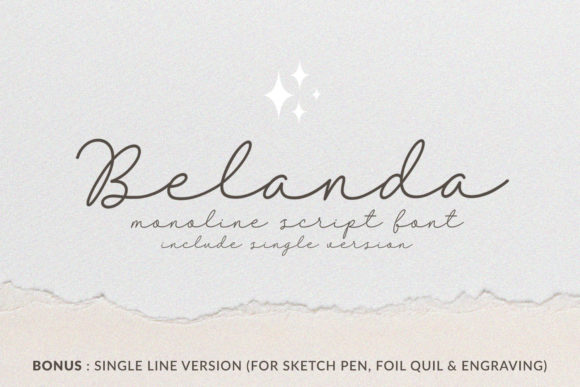
Belanda Font: A Stylish and Vintage Script Font for Your Design Projects
Are you looking for a font that can add a touch of elegance and romance to your design projects? Look no further than the Belanda font. This stylish and vintage script font is perfect for a variety of design ideas, from wedding invitations to branding and packaging. In this article, we’ll take a closer look at the Belanda font, its features, and how you can use it to elevate your design projects.
What is Belanda Font?
Belanda is a beautiful script font that is inspired by traditional calligraphy. It features flowing lines, elegant curves, and a romantic feel that makes it perfect for designs that require a touch of sophistication. The font is designed to be versatile and can be used for a wide range of projects, from digital designs to print materials.
One of the standout features of the Belanda font is its unique and stylish design. The font has a distinctive vintage feel that sets it apart from other script fonts. The letters are carefully crafted to create a sense of movement and fluidity, making it perfect for designs that require a sense of elegance and refinement.
Design Ideas for Belanda Font
The Belanda font is incredibly versatile and can be used for a wide range of design projects. Here are some ideas to get you started:
- Wedding Invitations: The Belanda font is perfect for wedding invitations, adding a touch of romance and elegance to your design.
- Branding and Packaging: Use the Belanda font to create a unique and stylish brand identity that sets your business apart.
- Social Media Graphics: Add a touch of sophistication to your social media graphics with the Belanda font.
- Posters and Flyers: Use the Belanda font to create eye-catching posters and flyers that grab attention.
- Logos: The Belanda font is perfect for creating elegant and refined logos that reflect your brand’s personality.
Benefits of Using Belanda Font
There are many benefits to using the Belanda font in your design projects. Here are a few:
- Unique Design: The Belanda font has a unique and stylish design that sets it apart from other script fonts.
- Versatility: The font is incredibly versatile and can be used for a wide range of design projects.
- Elegance: The Belanda font adds a touch of elegance and sophistication to any design.
- Easy to Read: The font is easy to read, making it perfect for designs that require a clear and concise message.
Tips for Using Belanda Font
Here are some tips for using the Belanda font in your design projects:
- Pair with Other Fonts: Pair the Belanda font with other fonts to create a unique and stylish design.
- Use for Headings: Use the Belanda font for headings and titles to add a touch of elegance and sophistication.
- Experiment with Colors: Experiment with different colors to find the perfect combination that complements the Belanda font.
- Keep it Simple: Keep your design simple and clean to allow the Belanda font to shine.
The Belanda font is a stylish and vintage script font that is perfect for adding a touch of elegance and romance to your design projects. With its unique design, versatility, and ease of use, it’s no wonder that the Belanda font is a popular choice among designers. Whether you’re creating wedding invitations, branding and packaging, or social media graphics, the Belanda font is sure to impress.